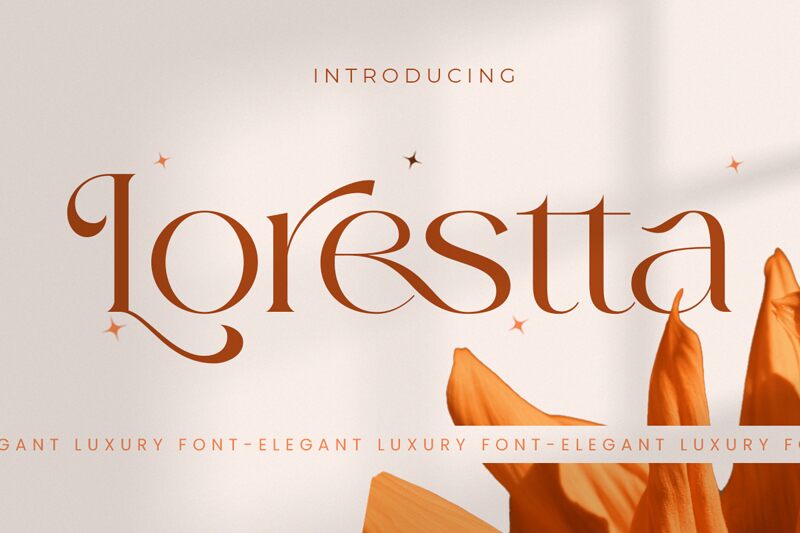
Lorestta font family is a free font designed by ToniStudio, available in two font styles. With a modern serif style, the font manages to look both timeless and luxurious. It connects us to a distant past while staying relevant with a balance between tradition and modernity. Lorestta is refined, elegant, and sophisticated as it was designed with high fashion, luxury branding, and decorative typography in mind. The style is evident in some of the letters with classy and minimalist curved and stylish ends. This gives the font a remarkable design that blends harmoniously with other lettering elements.
Since Lorestta is a high-end font, it’s suitable for creating quality branding, product packaging, logo, and advertising designs. Moreover, the font will look great in wedding designs and invitations, website headers, editorial designs, movies titling, and more. Using it in gaming platforms, social media posts, and video presentations will make your texts and any copy content you present appear elegant and visually stunning.